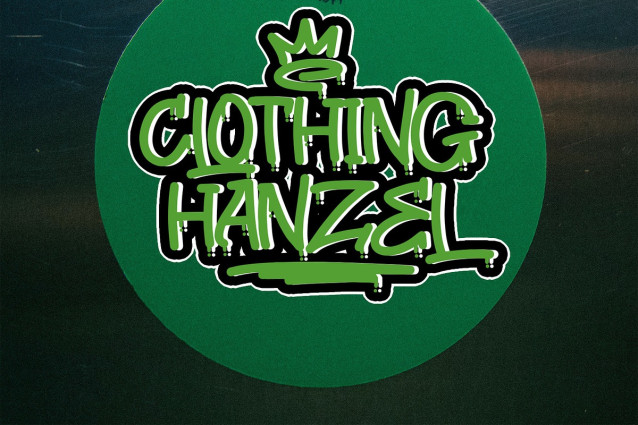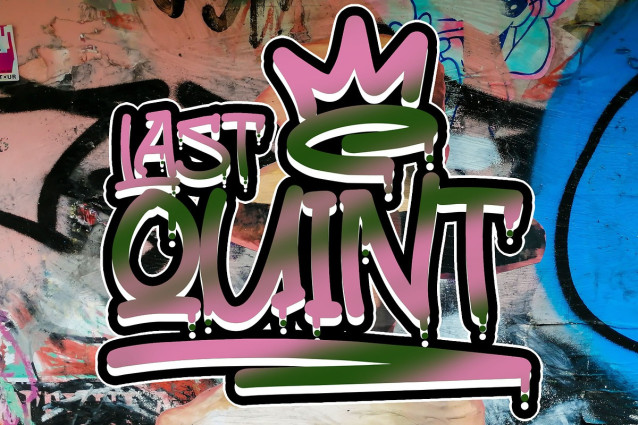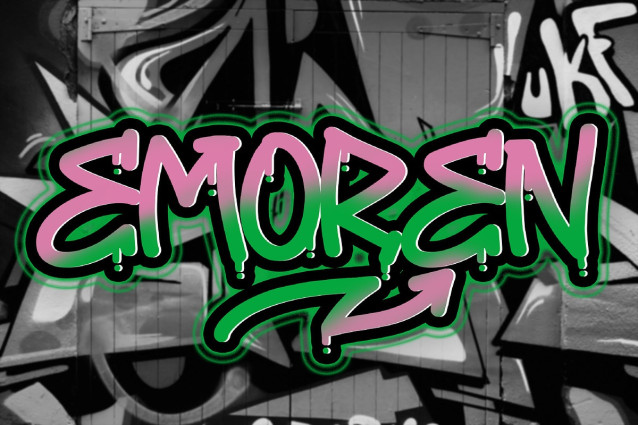
Emoren Graffiti Font
Emoren Graffiti Font a graffiti font with a bold dripping handbrush style, perfect for adding a unique and edgy vibe to your designs. With its dynamic character shapes, EMOREN brings a raw, eye-catching look that’s ideal for street art-inspired projects, posters, apparel, and more. Enhance the visual appeal of your creations with this one-of-a-kind font.